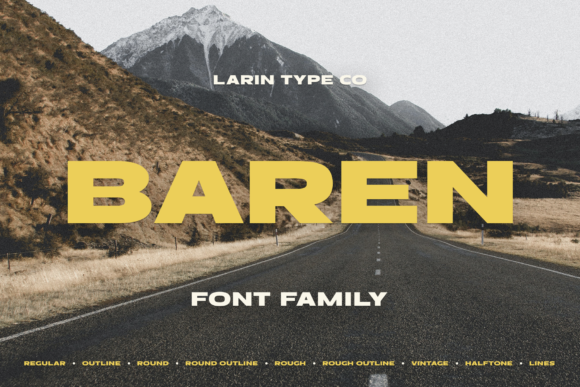
Immerse yourself in a realm of vintage charm and timeless elegance with Baren Font, a captivating display font that oozes coolness and boldness. Its rough-textured aesthetic exudes a sense of authenticity and grit, making it the perfect choice for projects seeking a touch of the past.
Step into a world where your designs transcend the ordinary and embrace a captivating vintage allure. Baren Font is not just a font; it's a gateway to a bygone era, where intricate details and timeless beauty converge. Its bold strokes and rough edges evoke a sense of nostalgia, while its distinct character adds depth and intrigue to any project.
Whether you're a seasoned designer or just starting your creative journey, Baren Font is an incredible asset that will elevate your designs to new heights. Its versatility knows no bounds, lending itself seamlessly to logos, branding, posters, invitations, and so much more. Unleash your imagination and let Baren Font guide you through a world of vintage splendor.
With Baren Font at your fingertips, you'll discover a world of endless possibilities. Its vintage charm will add a touch of sophistication to your designs, capturing the attention of your audience and leaving a lasting impression. From elegant wedding invitations to eye-catching social media posts, Baren Font is the perfect companion for those seeking a unique and captivating aesthetic.
Take your designs on a journey through time with Baren Font. Its unique style and vintage appeal will transform your creations into works of art that resonate with audiences worldwide. Embrace the beauty of the past and let Baren Font ignite your creative spark, propelling your designs to new heights of brilliance.